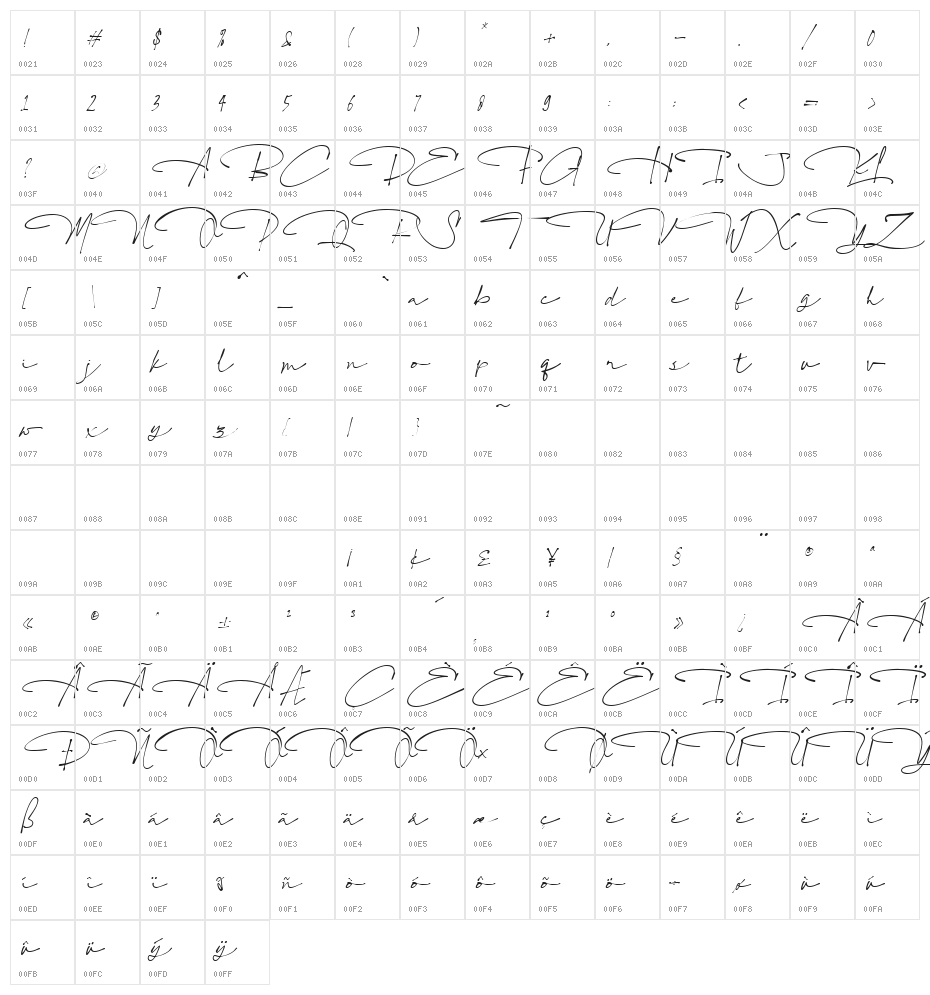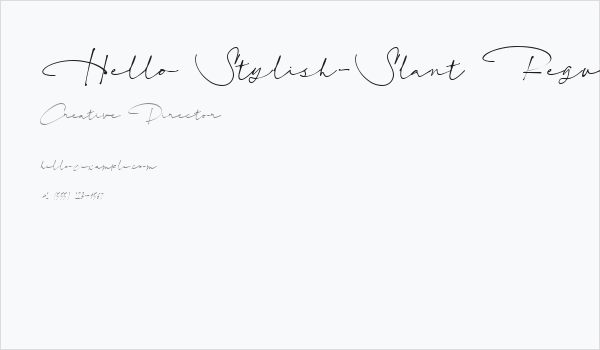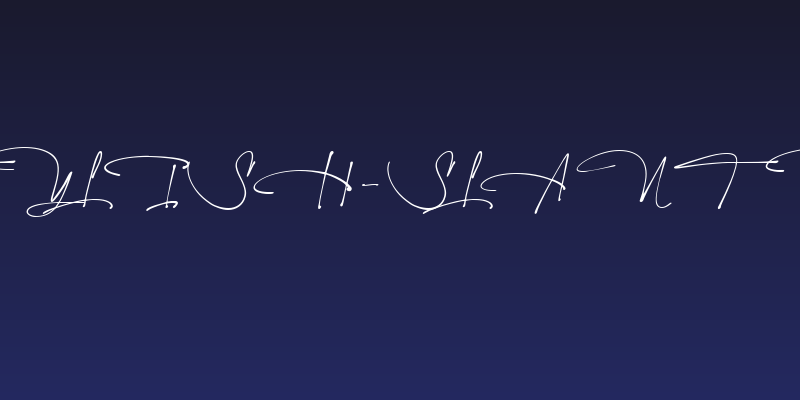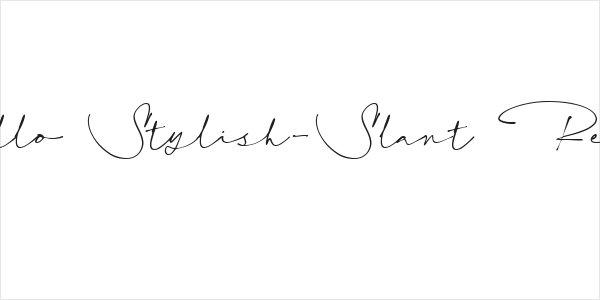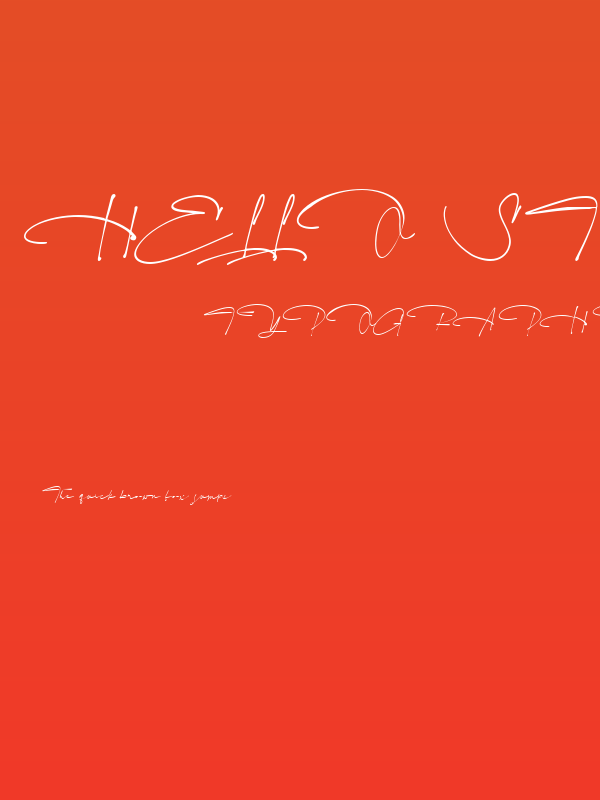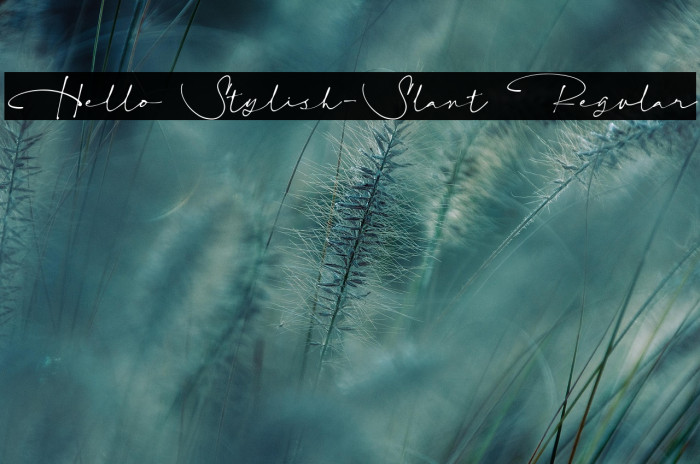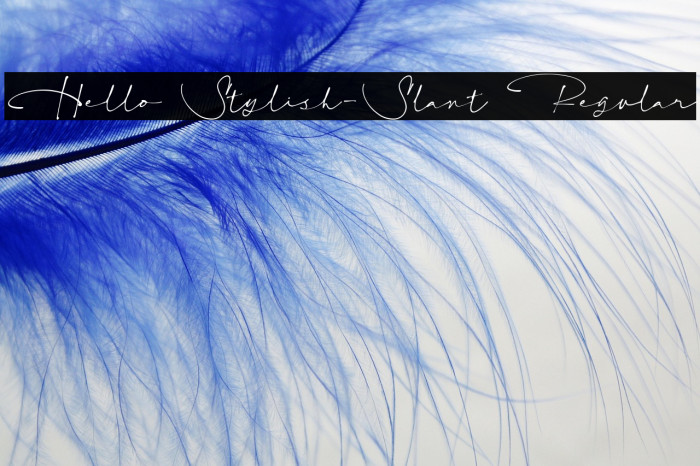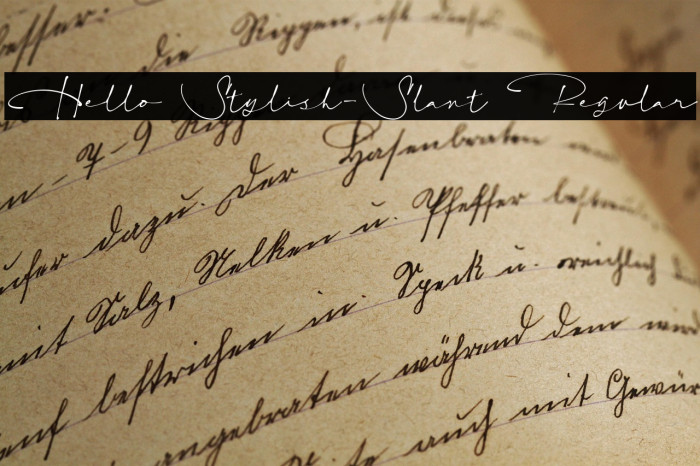
Hello Stylish-Slant Regular Font
Hello Stylish-Slant Regular Description
This font exudes a stylish and elegant flair with its slanted, cursive design. The characters are connected in a fluid manner, reminiscent of handwritten script, which adds a personal and artistic touch. The uppercase letters are slightly more ornate, with subtle flourishes that enhance their visual appeal. The lowercase letters maintain a consistent flow, ensuring readability while retaining their decorative nature. Numbers and special characters are crafted with the same attention to detail, integrating seamlessly into the overall design. This font is perfect for projects that require a sophisticated and modern handwritten look.
| Proposed Projects | Ideal for wedding invitations, greeting cards, branding, and social media graphics. |